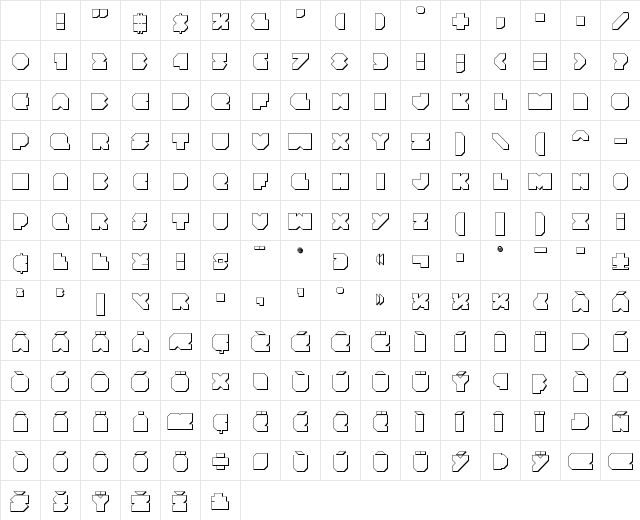
VX Rocket 3D Regular Free Font
VX Rocket 3D Regular
VX Rocket 3D Family
Design Context for VX Rocket 3D
VX Rocket 3D is a composed and adaptable typeface that performs quietly and consistently across a wide range of design contexts.